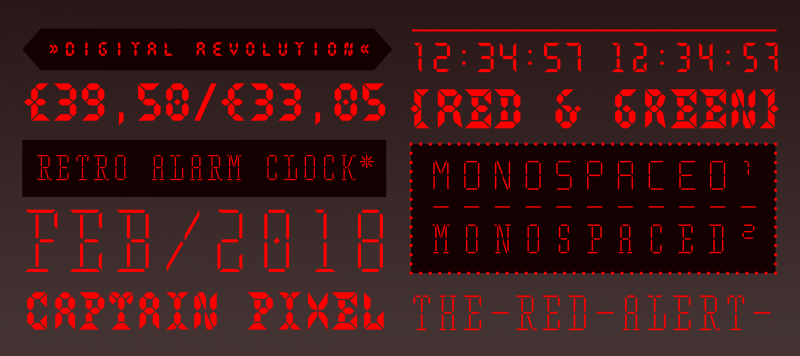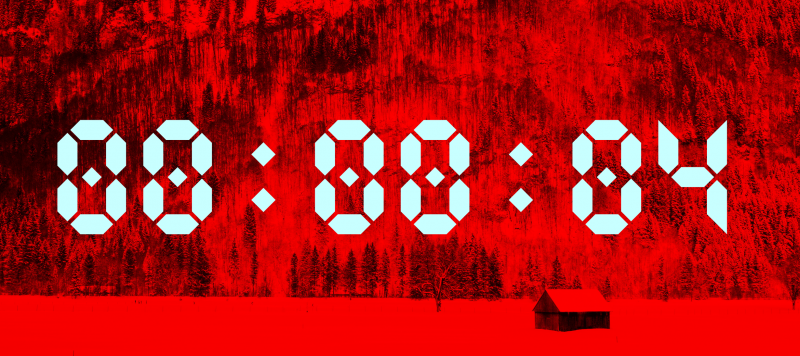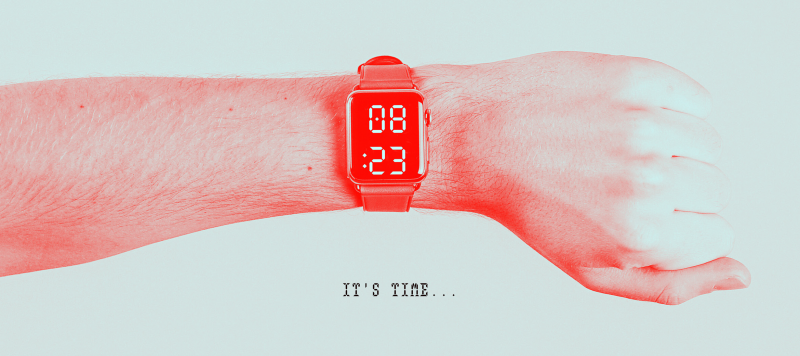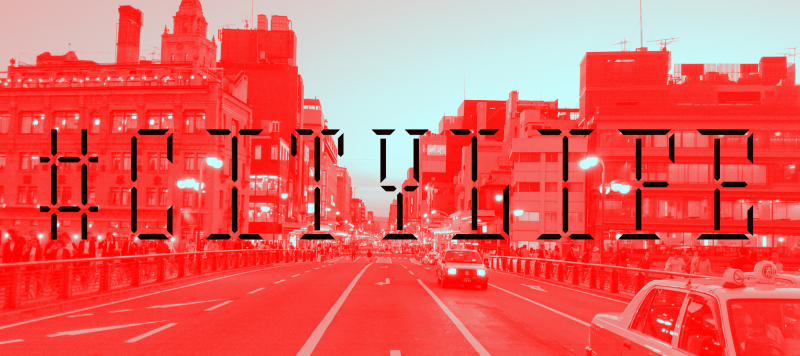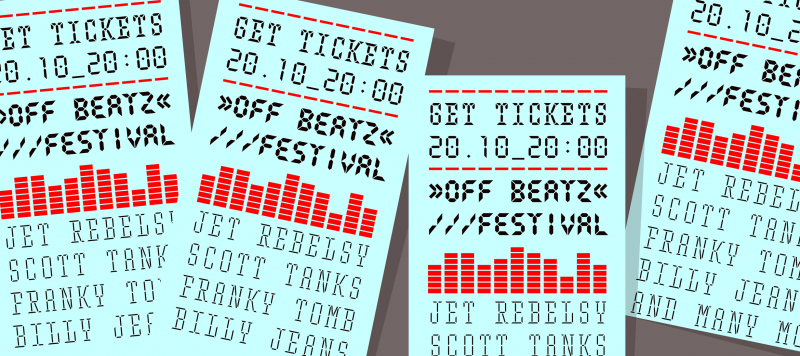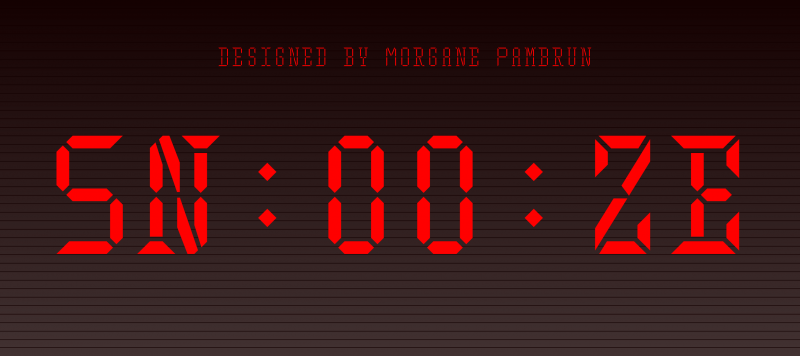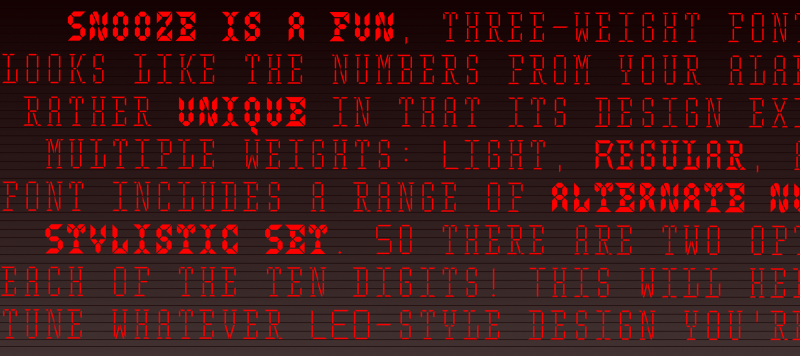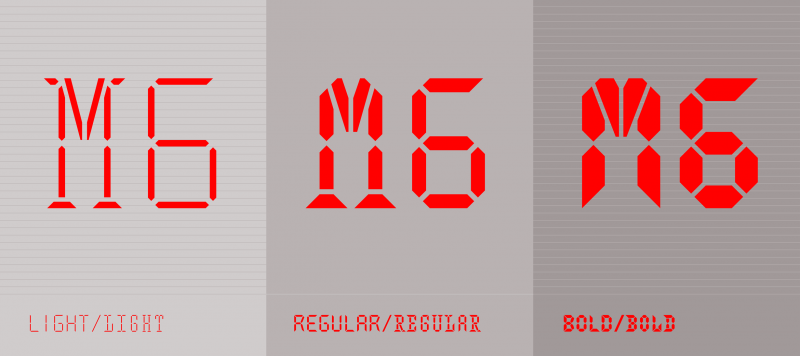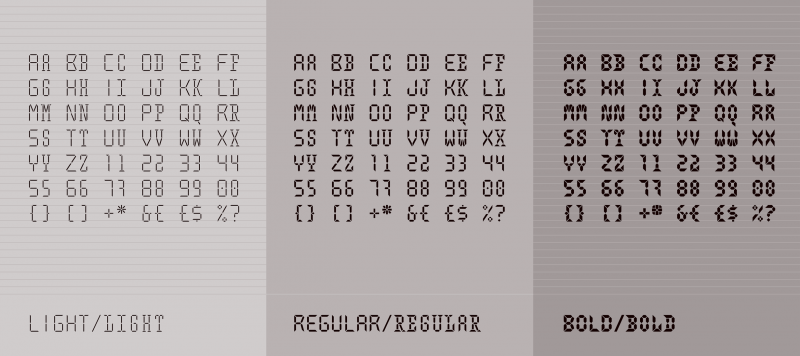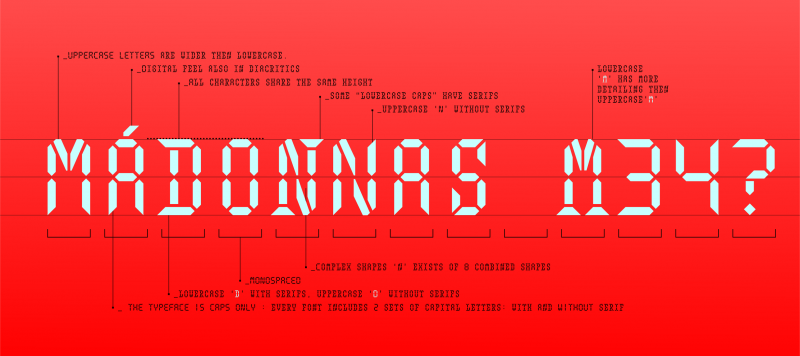
Snooze is a fun, three-weight font family that looks like the numbers from your alarm clock. That’s right, Snooze is an LED-style typeface! These gained popularity in the home on appliances decades ago, but have since been used all over our urban environment for displays inside buses, tram cars, trains, etc. While there are plenty of LED-style fonts available, Snooze is rather unique in that its design exists in multiple weights: Light, Regular, and Bold. But that isn’t its only variety on offer: each font includes a range of alternate numerals in a Stylistic Set. So there are two options for each of the ten digits! This will help you fine-tune whatever LED-style design you’re working on, whether it is a printed advertisement, or the timer inside a mobile app. Snooze is designed by Morgane Pambrun.
Family Name Snooze
Available Style Light, Regular, Bold
Classification Display, Slab